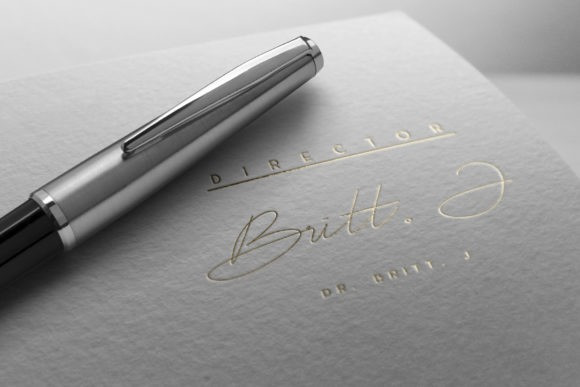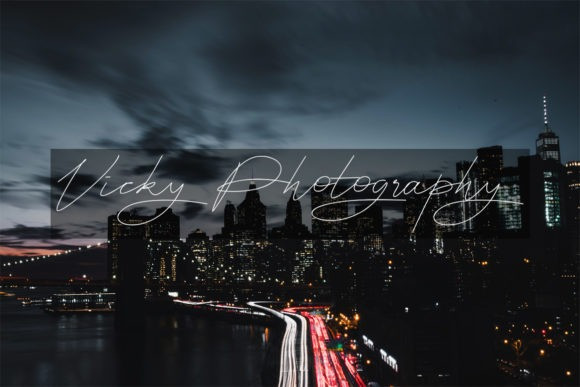
Signature Brush Font
Signature Brush is a flowing and delicate handwritten font. It looks stunning on wedding invitations, thank you cards, quotes, greeting cards, logos, business cards and every other design which needs a handwritten touch.